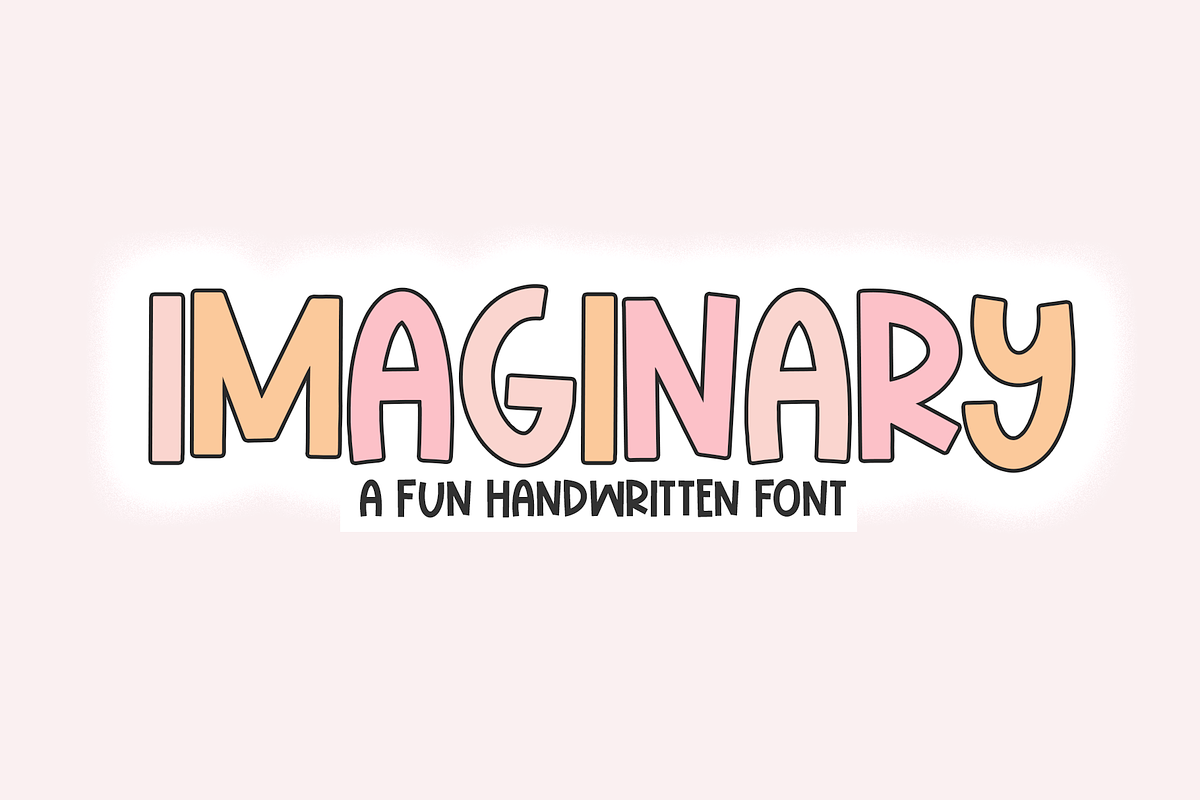
Imaginary | Fun Handwritten Font Free Download
Imaginary | Fun Handwritten Font Free Download is a playful and whimsical typeface that captures the spirit of a hand-drawn, carefree style. With its charming and irregular strokes, this font is perfect for adding personality to your designs, such as greeting cards, invitations, posters, social media graphics, and more.
Its fun and organic feel makes it ideal for projects that need a casual, friendly vibe—whether you're designing for a kids' brand, creating inspirational quotes, or crafting a personal logo. Imaginary brings a lively, human touch to your typography.